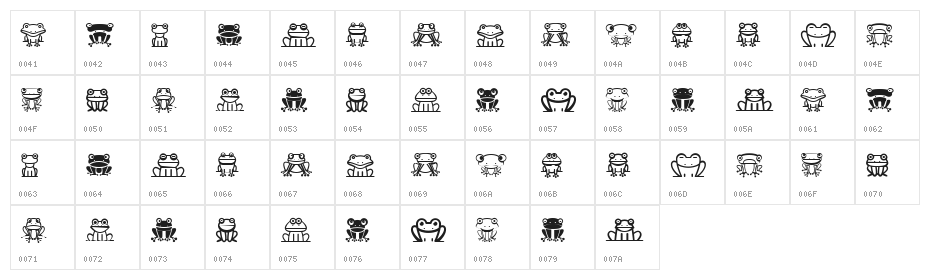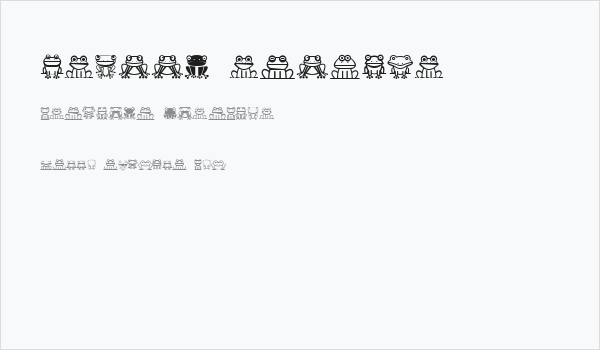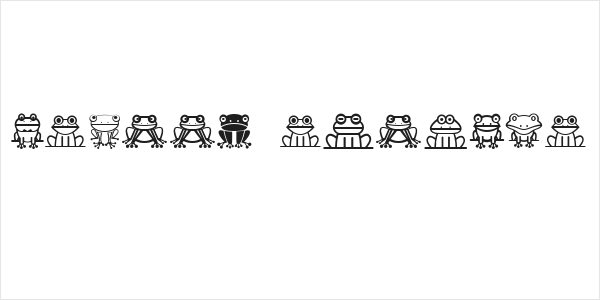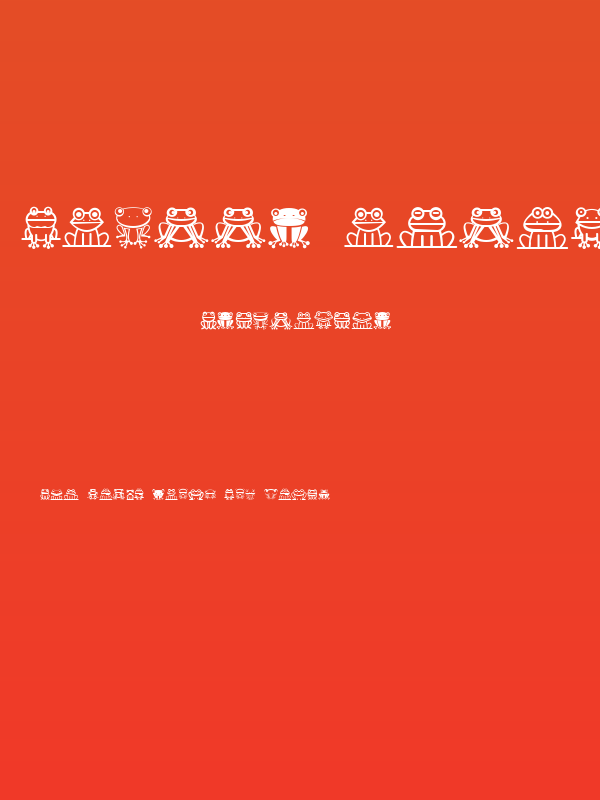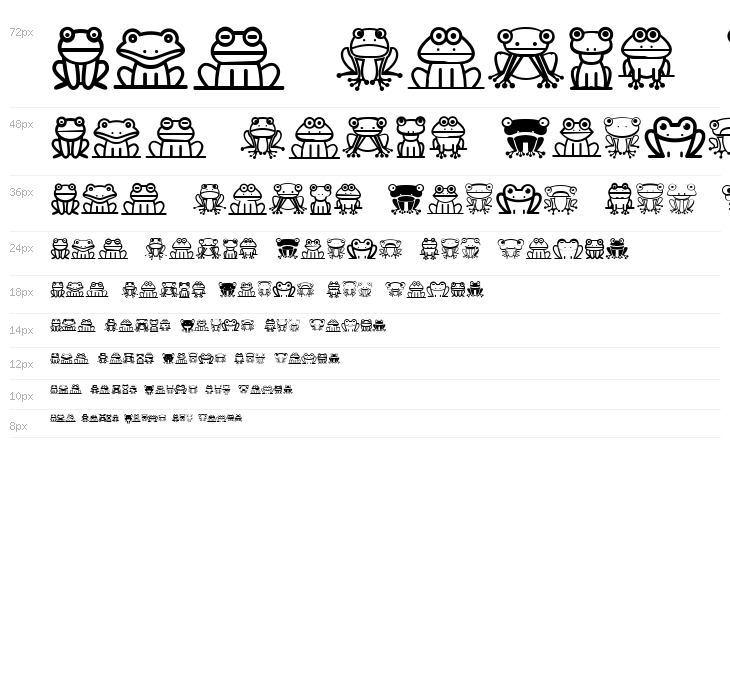
Froggy Regular Font
Froggy Regular Description
This playful and whimsical font features a series of frog illustrations that replace traditional alphanumeric characters. Each character is represented by a unique frog design, showcasing a variety of expressions and poses. The font is highly decorative and adds a fun, quirky element to any project. The characters are bold and cartoonish, with a consistent style that maintains visual coherence across the set. This font is perfect for projects that require a lighthearted and entertaining touch, such as children's books, playful branding, or themed event materials.
| Use Case | Decorative, Themed designs |
| Proposed Projects | Ideal for children's books, playful branding, themed events, and decorative posters. |